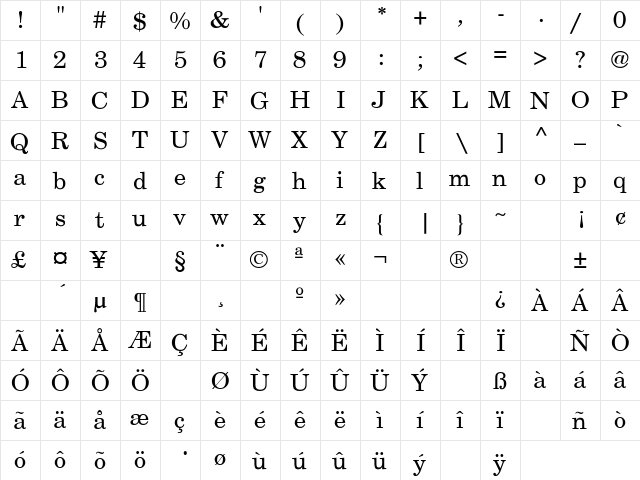
Beresford Regular Regular
Design Context for Beresford Regular Typeface
Beresford Regular takes a measured approach to typography — its balanced proportions and neutral character make it a reliable workhorse for both digital and print work.
Pro Tip: Use Beresford Regular in both headline and body roles to test its range before committing to a single application.